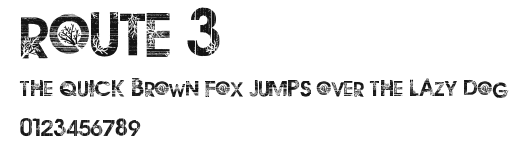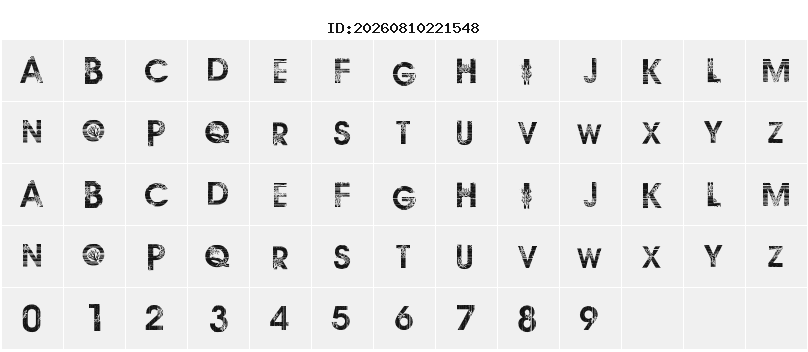
About route 3.ttf
route 3.ttf is a modern, elegant sans-serif font designed for ultimate readability and visual harmony. Perfect for branding, headlines, web design, and print materials.